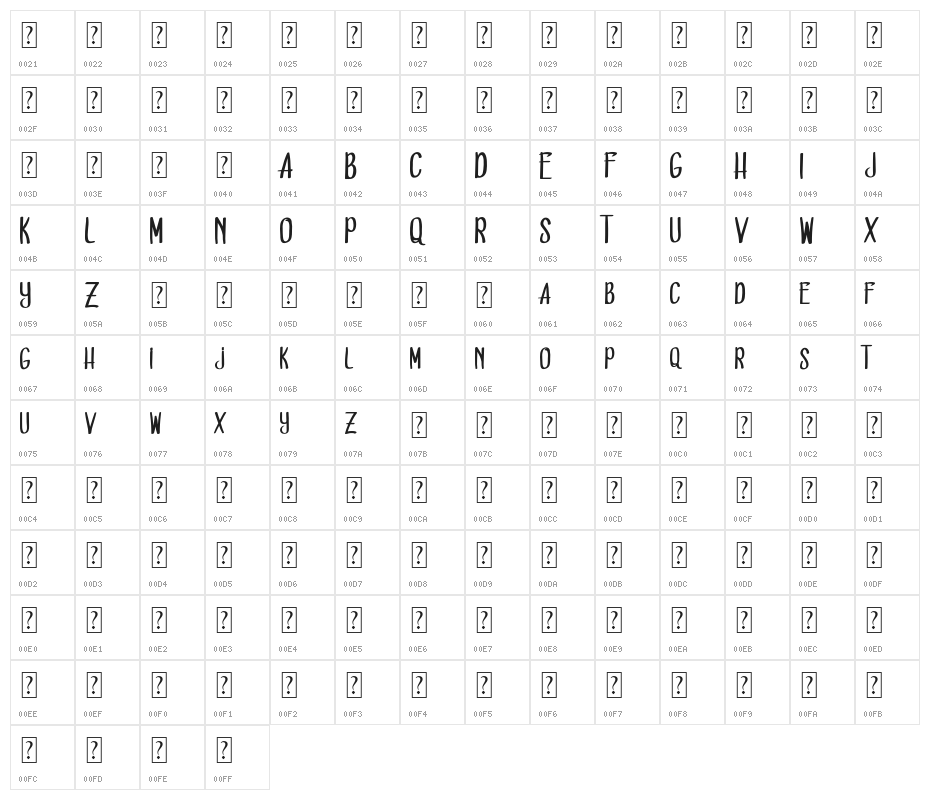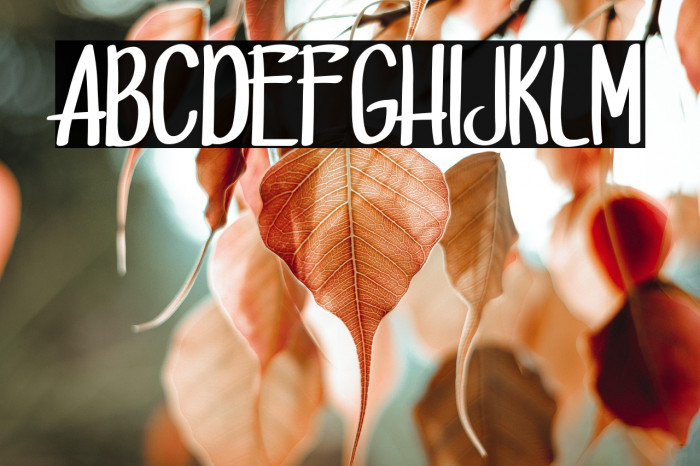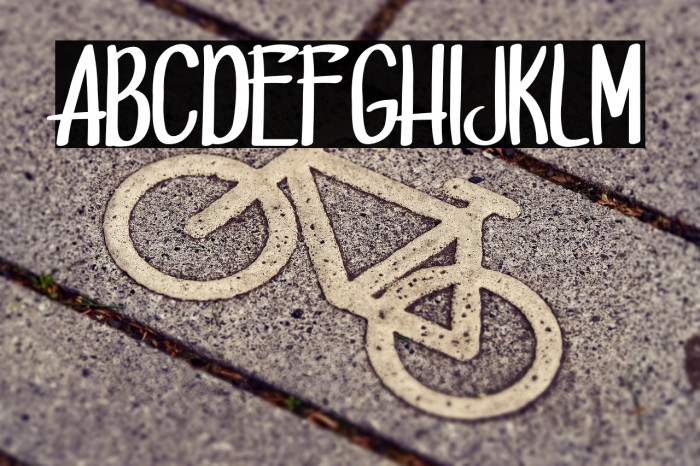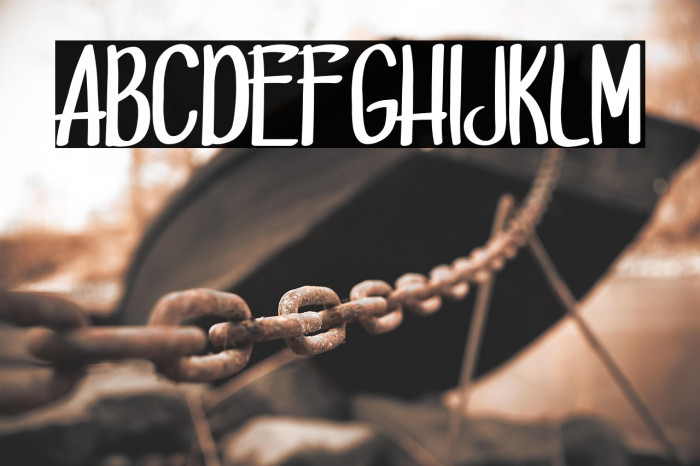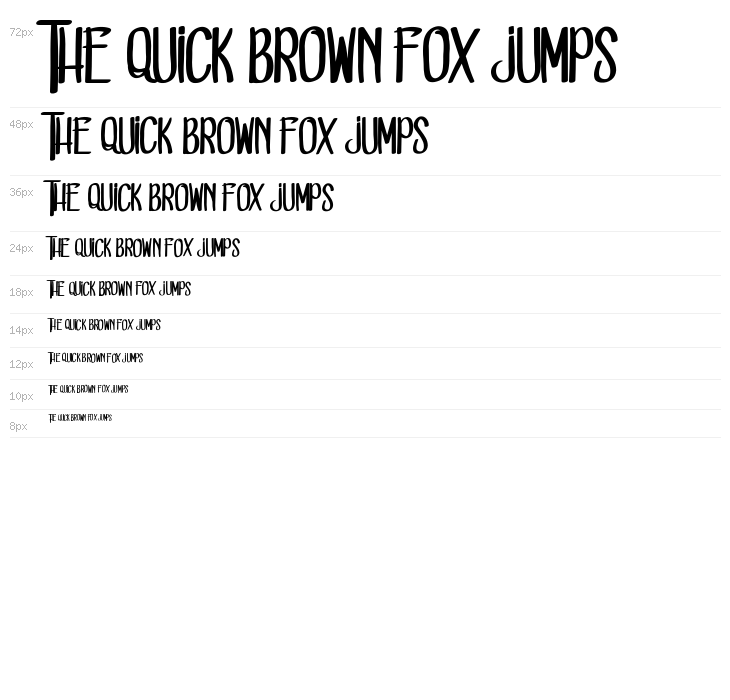
Dead solD Font
Dead solD Description
This font features a playful and bold handwritten style with a modern twist. The uppercase letters are tall and slightly narrow, giving a sense of elegance and sophistication. The lowercase letters maintain a consistent style, with smooth curves and a casual feel. The font's unique character is further enhanced by its quirky special characters, which add a touch of whimsy. The overall design is clean and legible, making it suitable for a variety of creative projects. Its boldness ensures that it stands out, while the handwritten quality adds a personal touch.
| Use Case | Logos, Headlines, Posters |
| Proposed Projects | Ideal for greeting cards, invitations, branding, and social media graphics. |